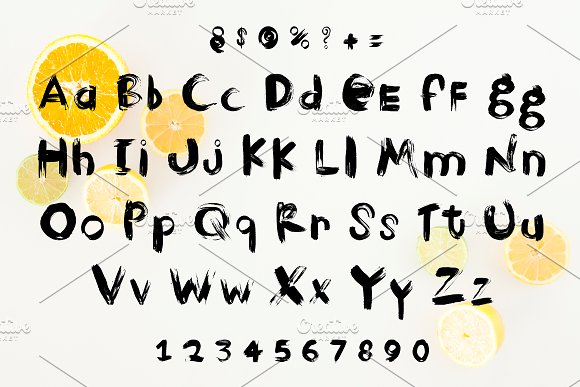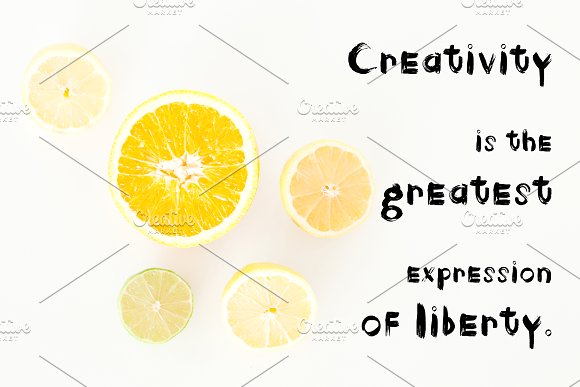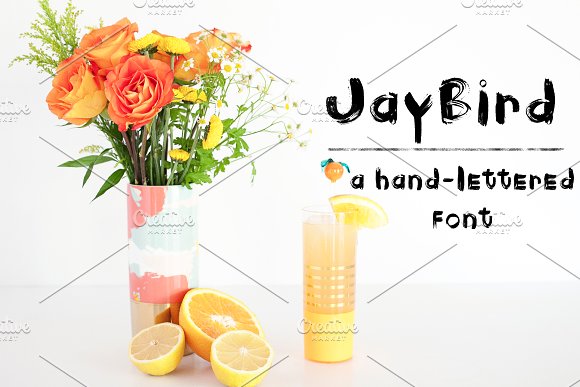
JayBird Display Font
This is the JayBird font: a brush-lettered font with personality! Available in TTF file with lower and uppercase alphabet, symbols, and numbers.